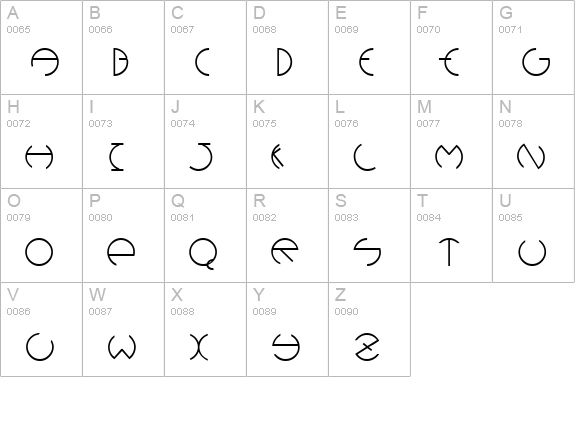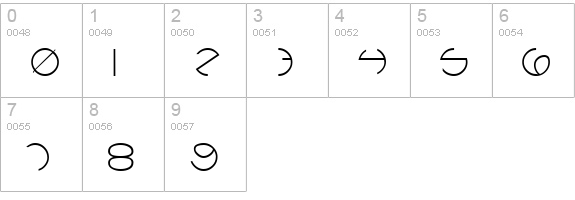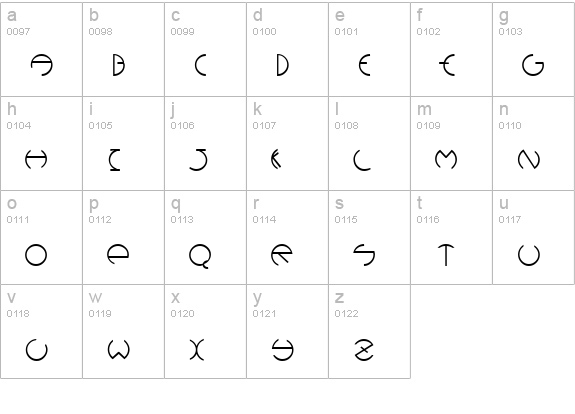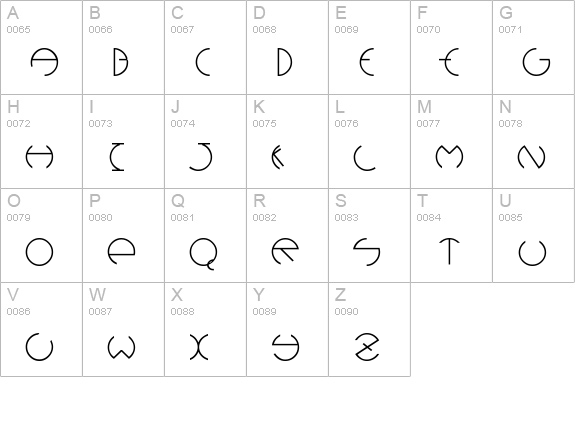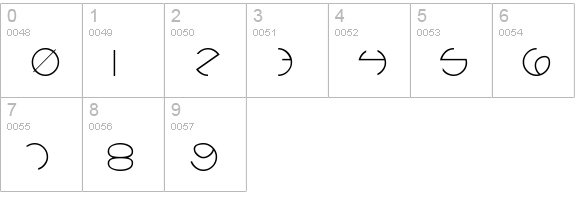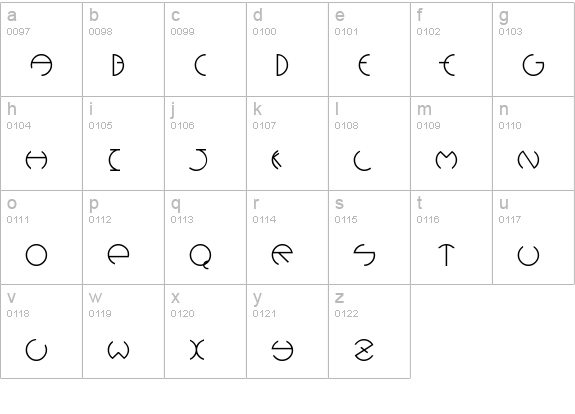
Nirwana Font Details
Introducing Nirwana font, a versatile and elegant typeface that exudes a sense of modern sophistication. With its clean lines and distinctive curves, Nirwana is perfect for a wide range of design projects, from logos to branding to editorial design. This font boasts a timeless appeal that will elevate your work to the next level. What's even better is that Nirwana font is available for free download at FontsMarket.com. Yes, you heard that right - you can get your hands on this stunning font at no cost, making it a must-have addition to your font collection. Don't miss out on the opportunity to enhance your designs with the beauty and versatility of Nirwana font. Download it today and let your creativity shine!